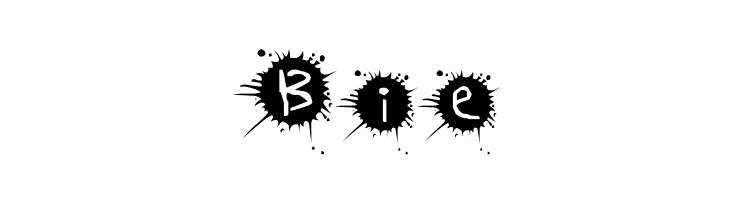
A chaotic, distressed font with jagged strokes and splattered ink effects.
A bold, distressed font with a paint-splattered, grunge style.
A playful, hand-drawn font with splattered, irregular edges.
A bold, distressed font with a grungy, splattered appearance.
A bold, graffiti-inspired font with expressive, splattered characters.
An abstract, ink-splatter inspired decorative font with a chaotic and artistic style.
An abstract, graffiti-like font with ink splatter aesthetics.
A chaotic, ink-splattered font with a raw, artistic style.
A distressed, grunge-style font with decorative swirls and splatters.
A bold, decorative font with a splattered paint effect for an edgy, urban look.
An artistic font with ink splatter designs for a bold, expressive look.
An artistic font with ink splatter-inspired characters, offering a chaotic and expressive style.
A bold, distressed font with irregular edges and splatter details.
A bold, distressed font with an ink-splattered, grunge aesthetic.
A bold, spiky, ink-splattered decorative font with a raw, expressive style.
A bold, ink-splattered font with dynamic, brush-like strokes.
A bold, distressed decorative font with an ink-splatter aesthetic.
A bold, grungy font with splatter elements and angular letterforms.
A playful, paint-splattered font with a bold and dynamic style.
A textured, expressive font with dynamic brush strokes and splatter effects.
A bold, grunge-style font with a splattered, distressed appearance.
A distressed, grungy font with splatter and drip effects for an edgy look.
A bold, gritty font with splattered, distressed strokes and a chaotic artistic vibe.
A bold, distressed font with a grunge texture and splattered ink effect.
A grungy, distressed font with a splattered ink effect and irregular strokes.